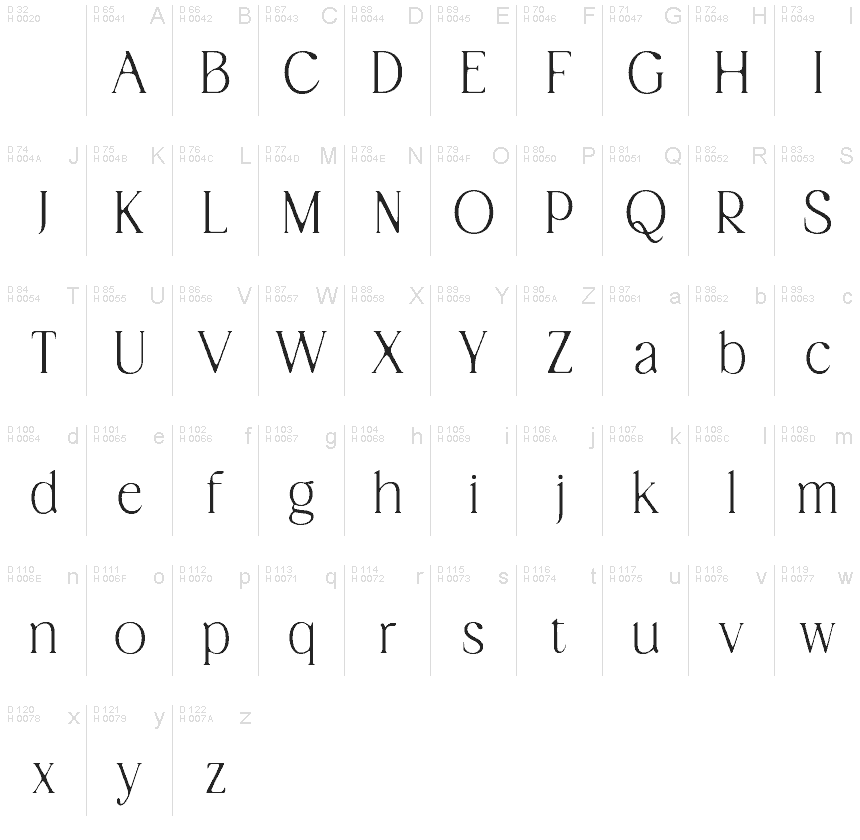
CSBorisDrawn-Regular Demo
CS Boris Drawn font by Craft Supply Co. is a refined serif font with an artistic flair. It comes in an early sketch form which offers a stylish modern feel for projects that demand elegance and beauty. It has a sophisticated charm achieved through delicate consistent line work made thicker at various strategic points.
CS Boris Drawn Demo